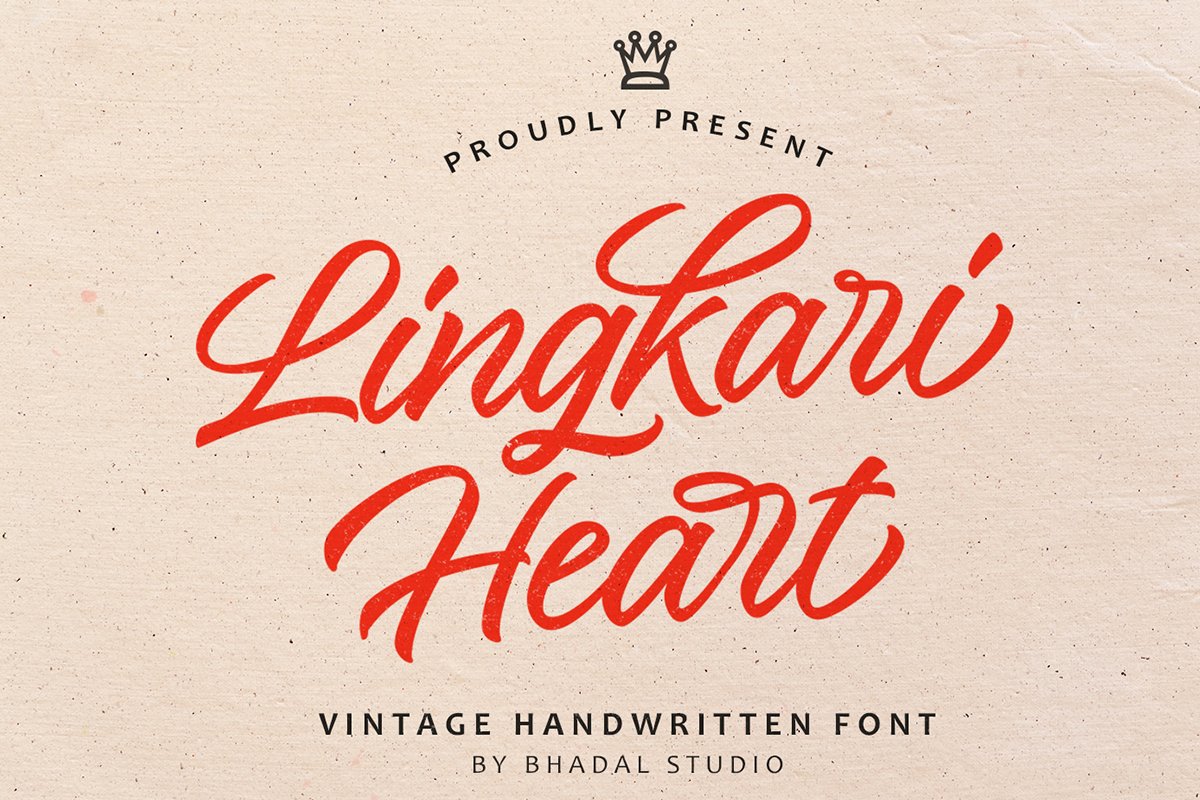
Lingkari Heart - vintage handwritten font
Lingkari Heart
Introducing Lingkari Heart A new vintage handwritten font. This font perfectly made to be applied especially in logo, packaging, headline, poster, t-shirt/apparel, greeting card, and wedding invitation and the other project.
As you can see at the previews, this font has unique swashes that allows you to create beautiful lettering in a snap! it has many stylistic set alternates that you can choose from.